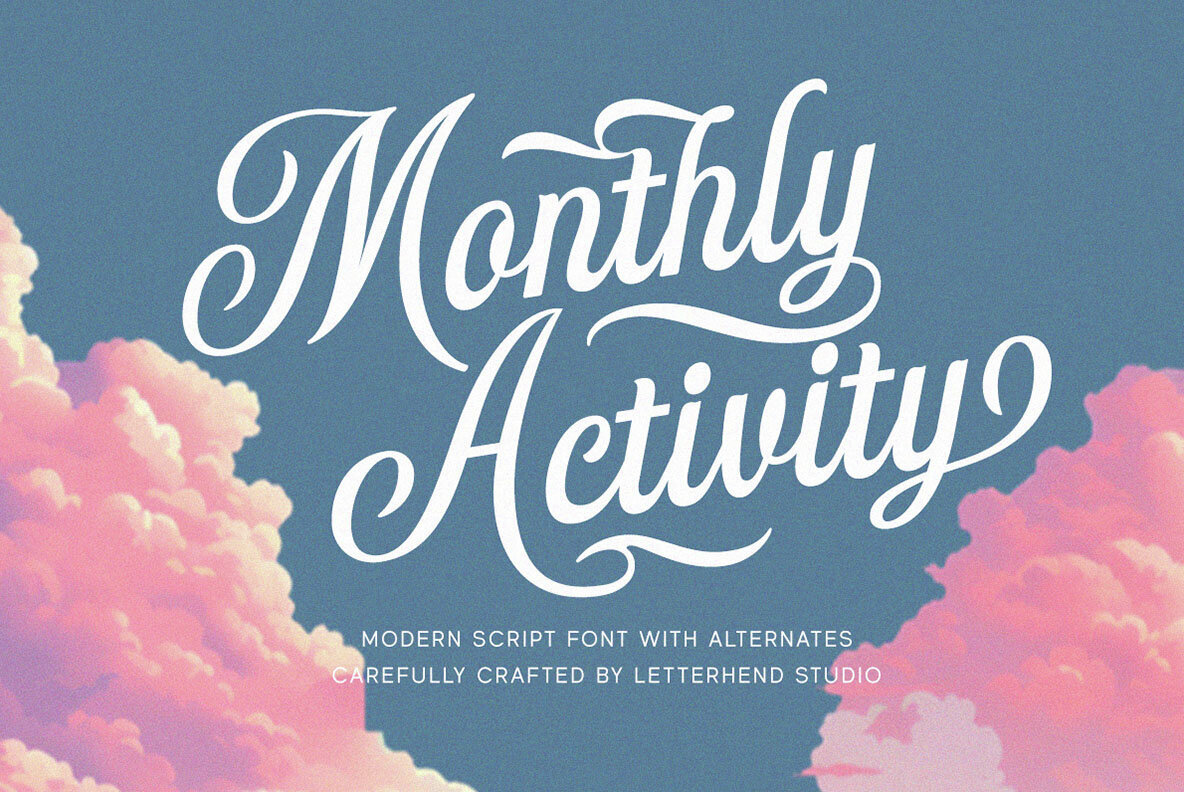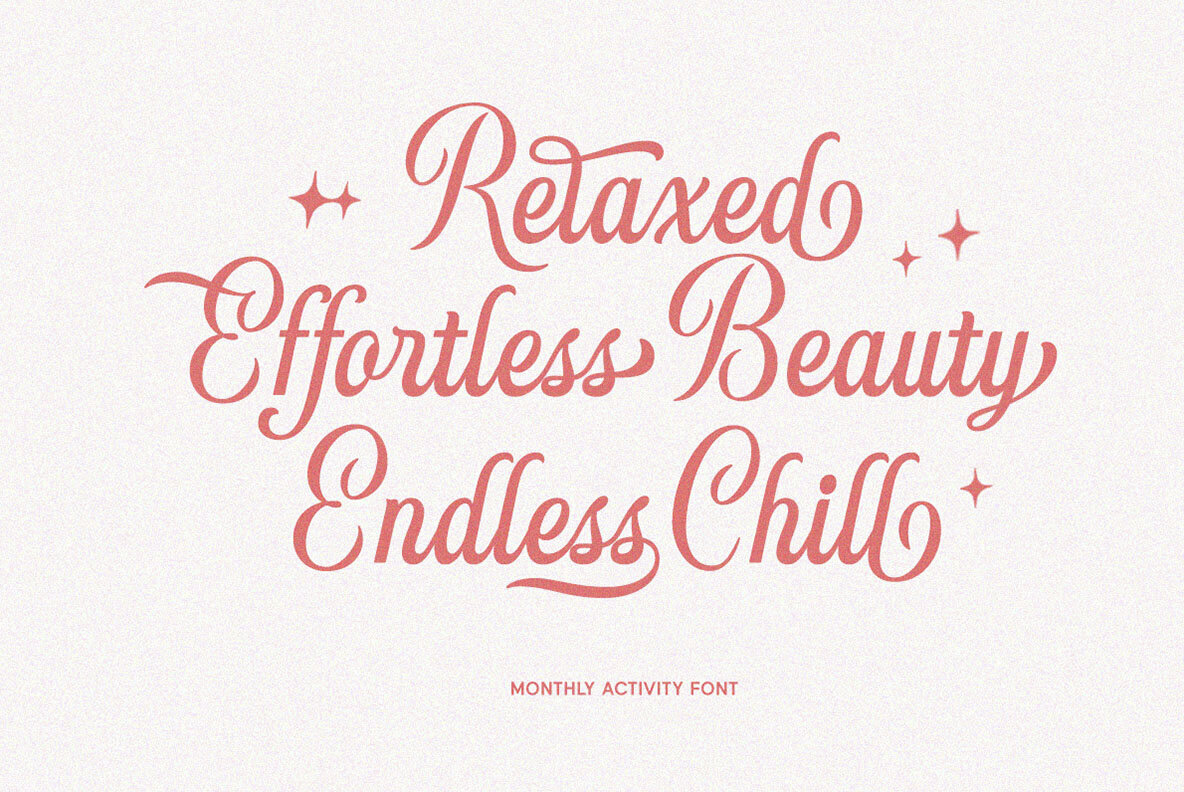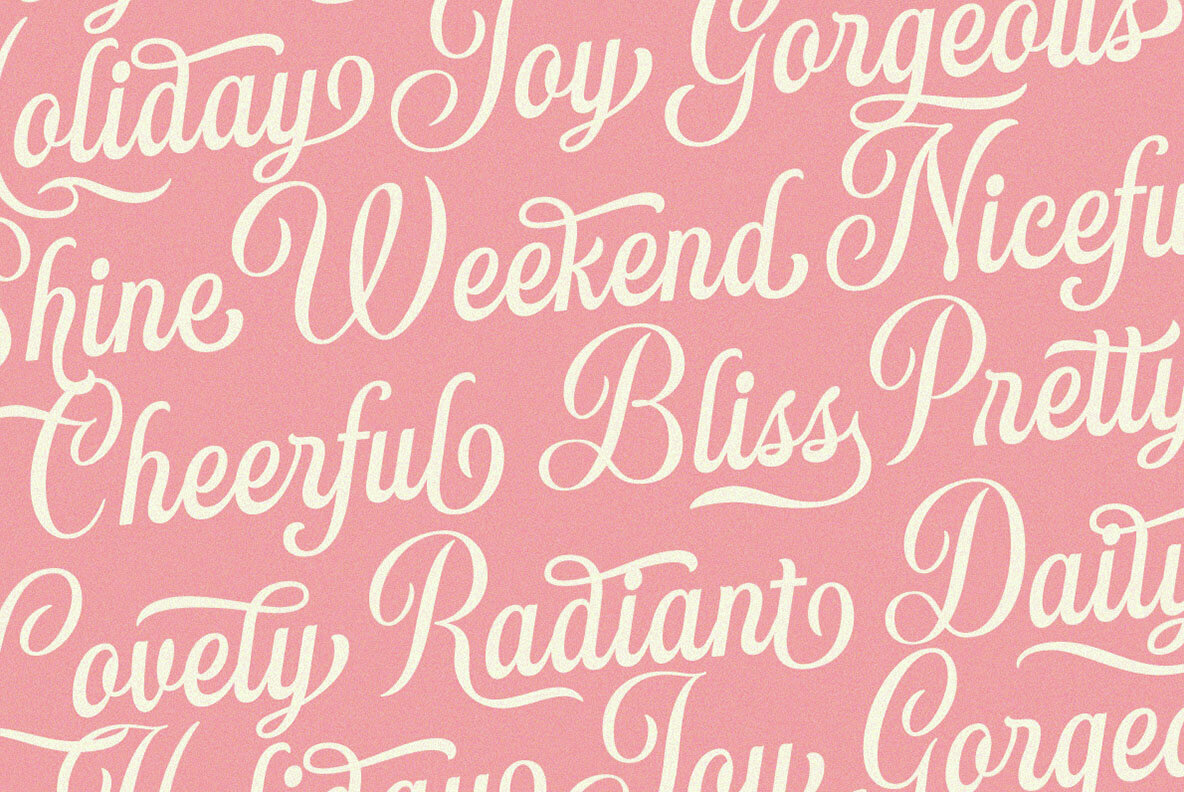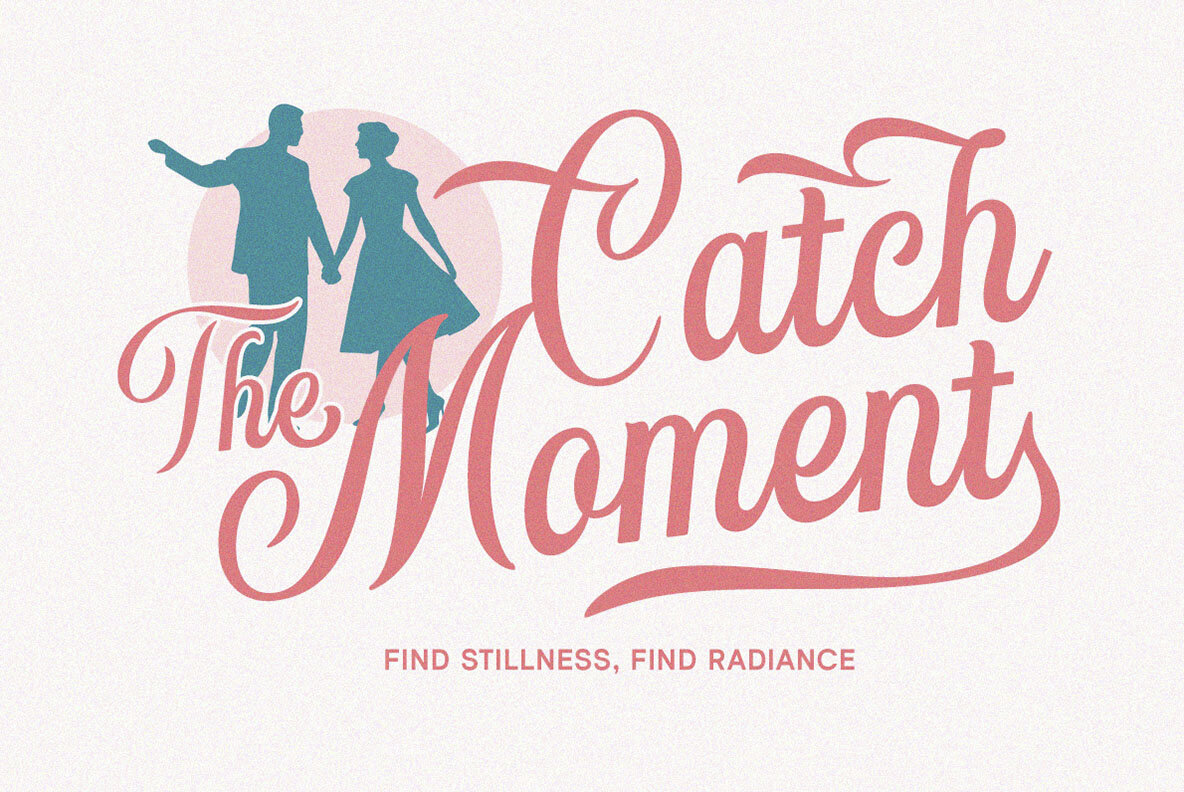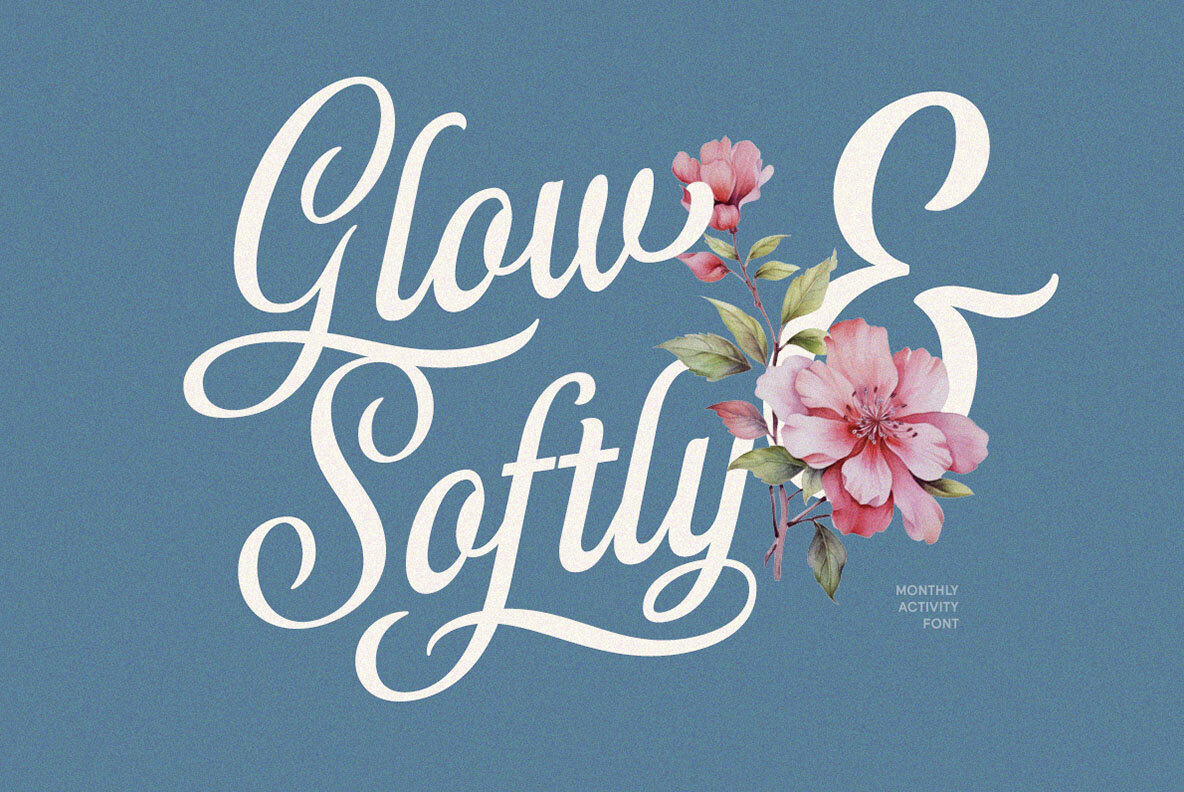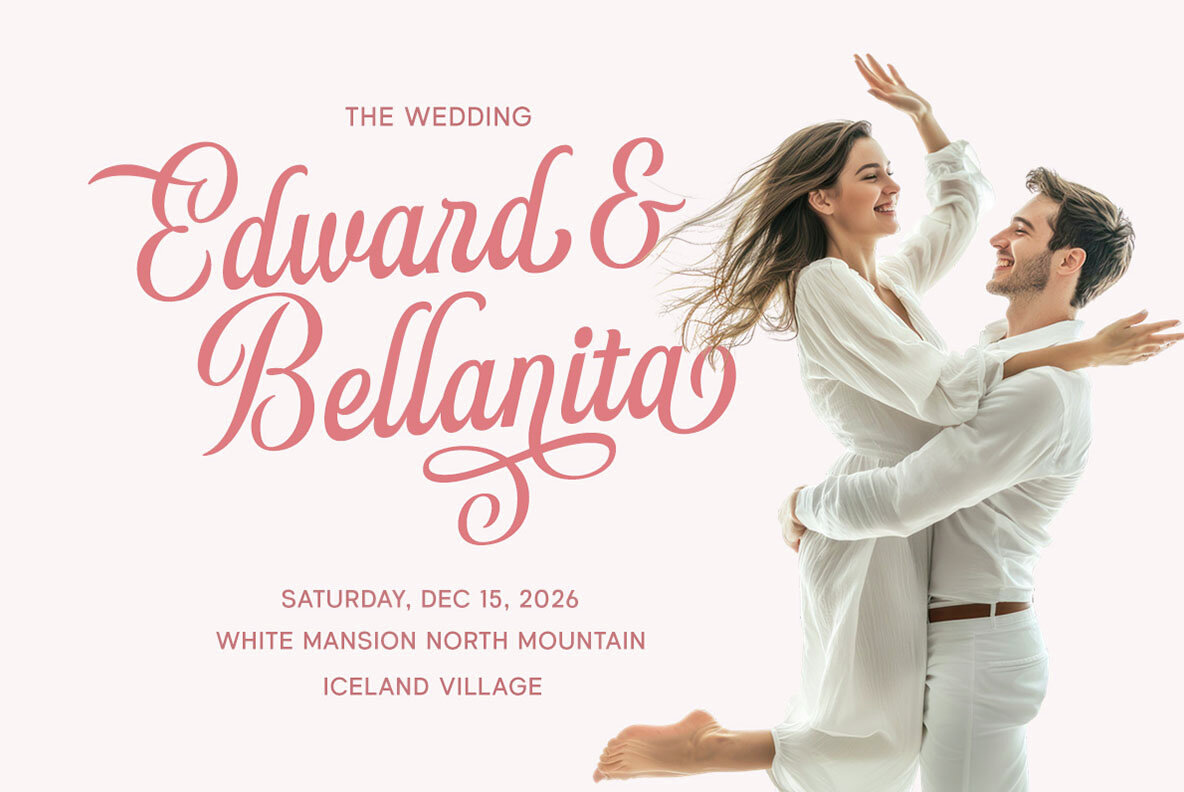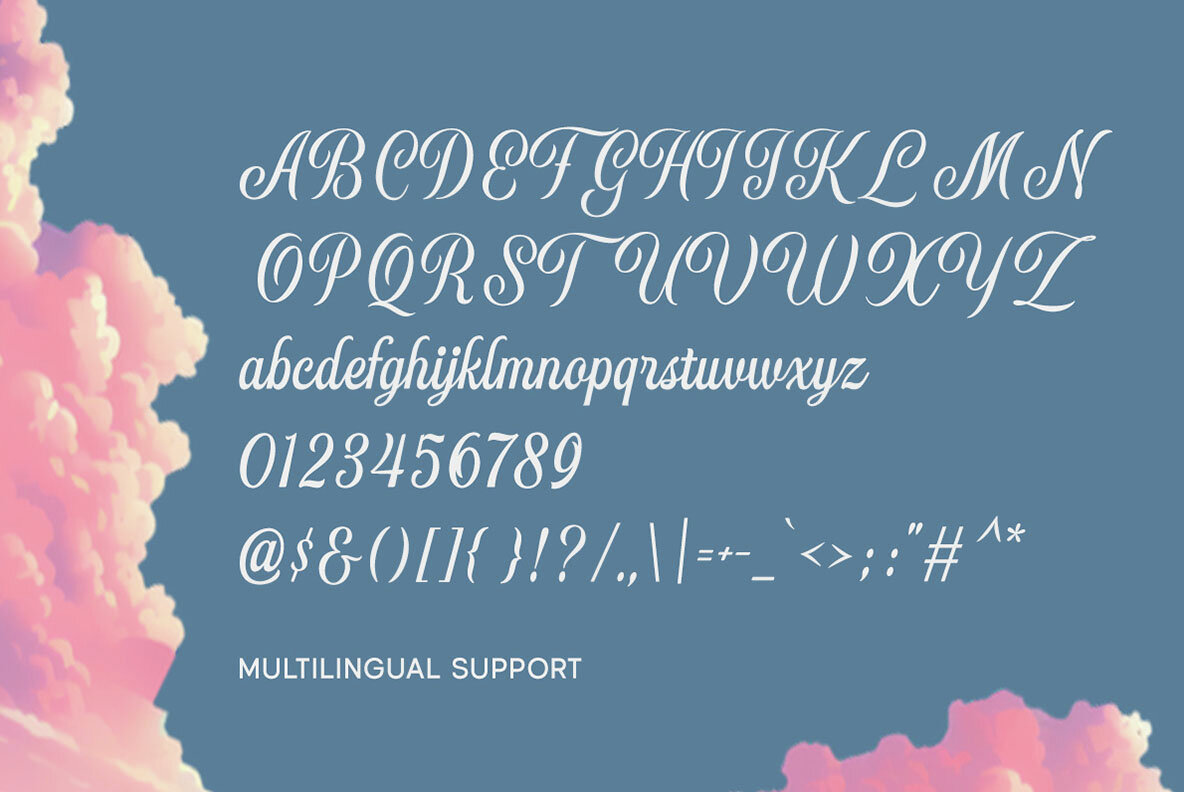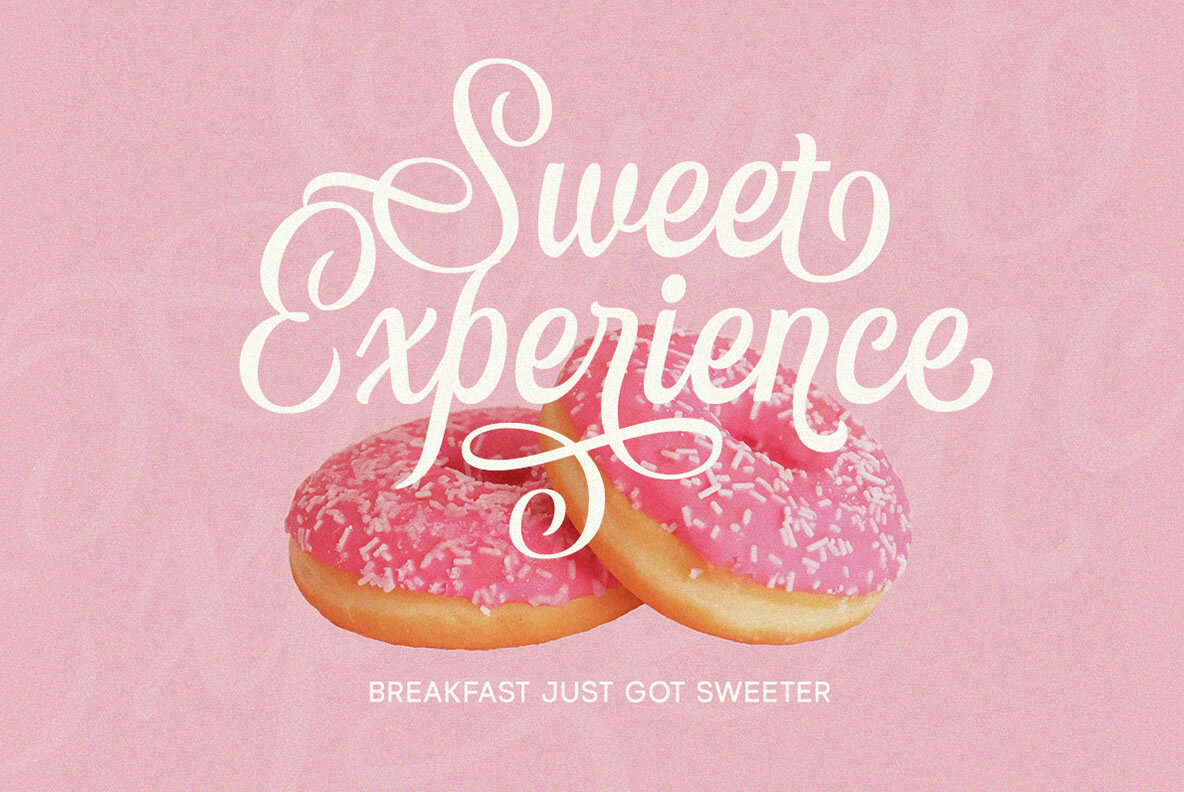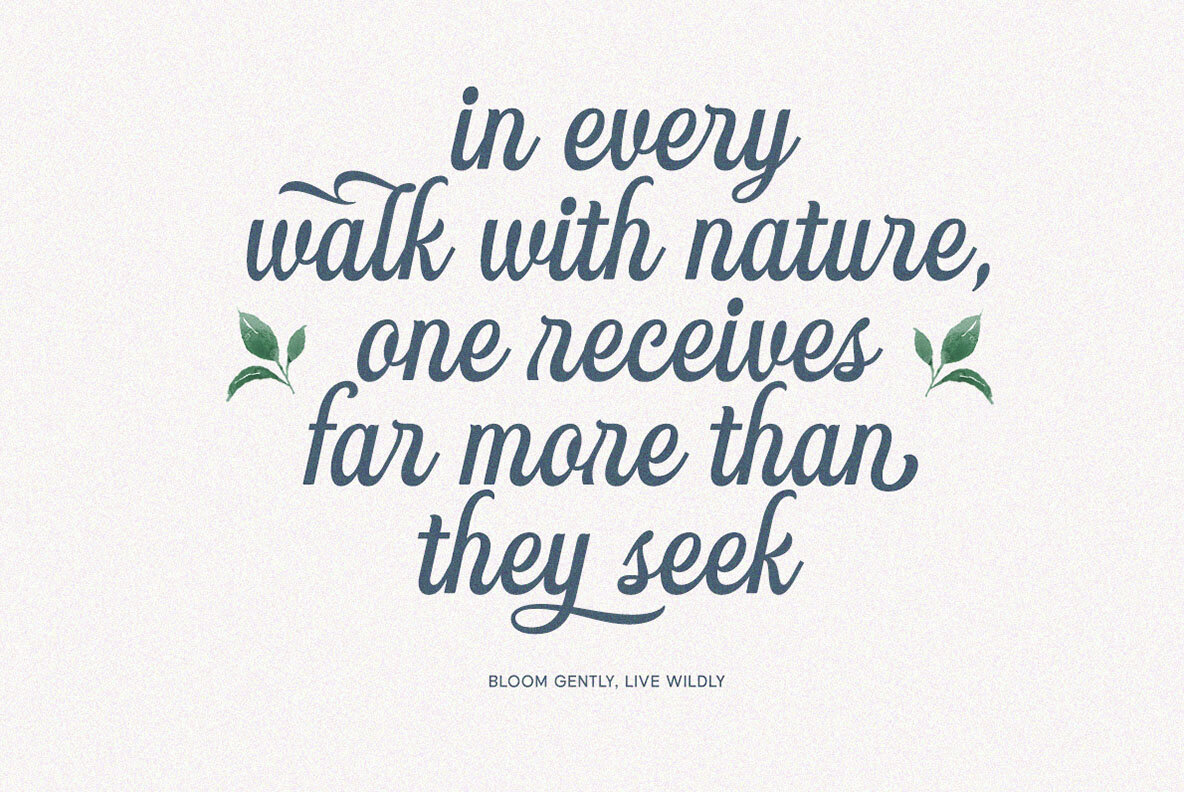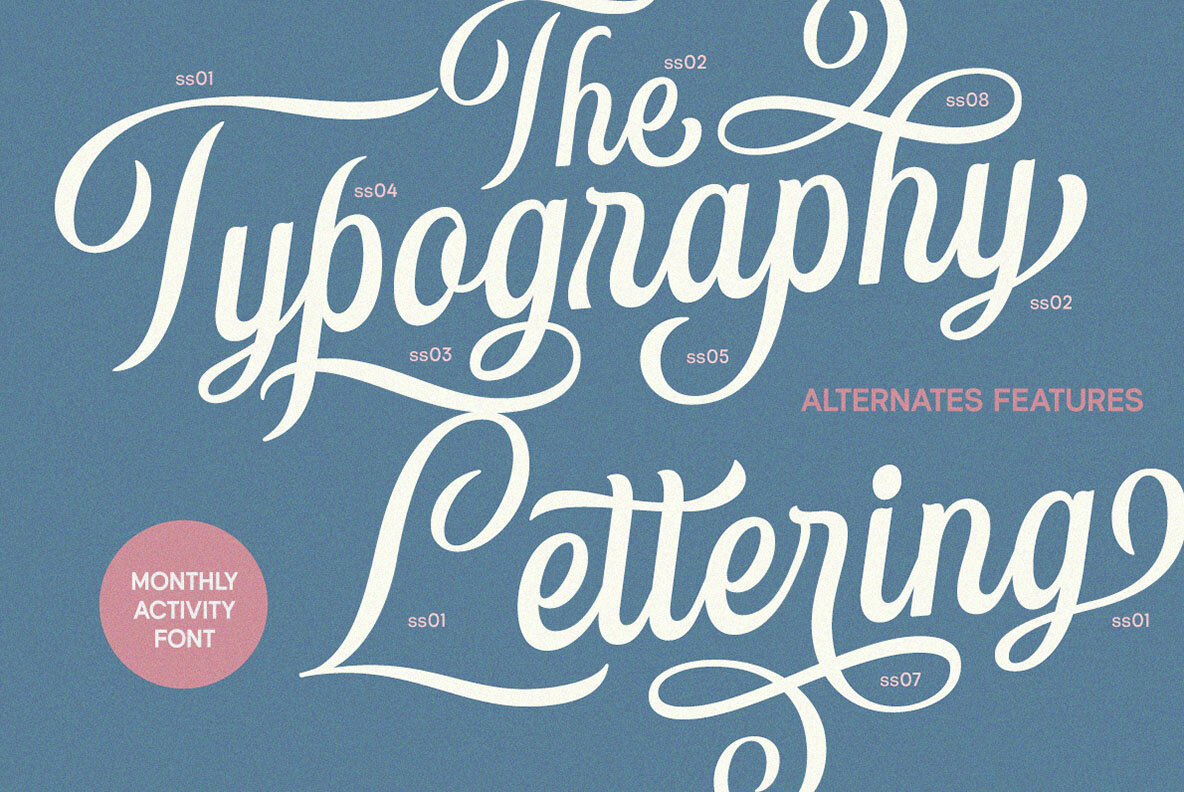
Monthly Activity Font
Monthly Activity
Monthly Activity is a modern script font that blends classic elegance with a contemporary flair. Designed with smooth strokes and flowing letterforms, it includes various alternate characters to give your design a dynamic and expressive touch. Perfect for branding, packaging, invitations, and social media posts that need a feminine, elegant, and approachable look. Features: We highly recommend using a program that supports OpenType features and Glyphs panels like many of Adobe apps and Corel Draw, so you can see and access all Glyph variations.